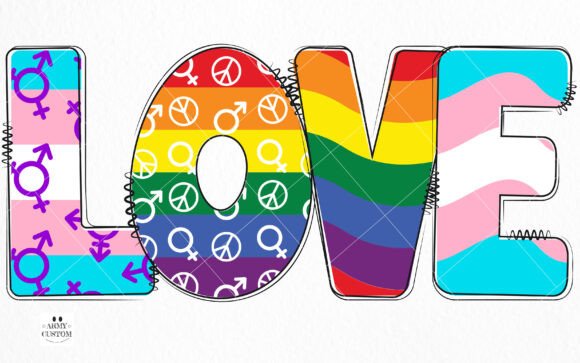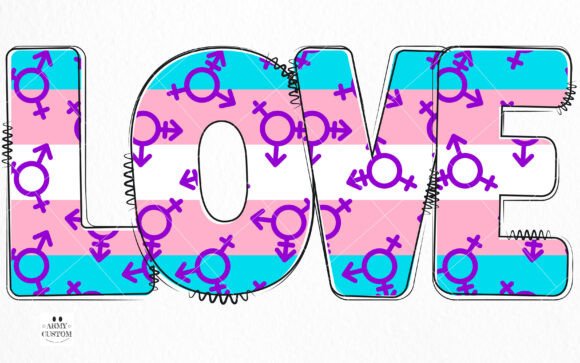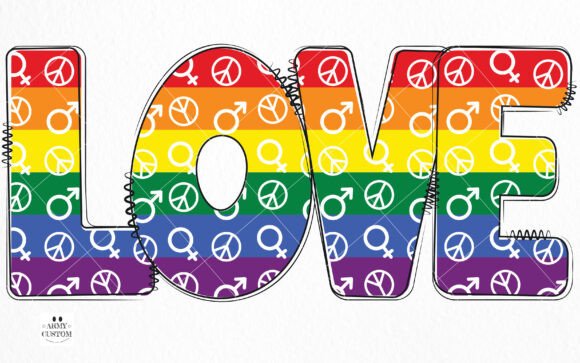
Introduction to Love Pride Bundle Font
Have you ever been brainstorming a creative project, pouring your heart and soul into it, only to be stuck on the perfect typography? We’ve all been there, searching for that one font that captures the essence of our vision. For designers, finding the right font can be a game-changer. It’s the difference between a good design and an amazing one.
That’s why we’re excited to introduce you to the “Love Pride Bundle Font”, a high-quality, free download that’s sure to become your new go-to design resource. This captivating typeface is not only beautiful but also versatile, offering a transparent background that’s perfect for a wide range of creative projects.
With the “Love Pride Bundle Font”, you’ll be able to express your love and pride in a way that’s both elegant and dynamic. Whether you’re working on a romantic project or a celebratory design, this font is sure to bring a touch of magic to your work. So why wait? Dive into the world of “Love Pride Bundle Font” and discover a new level of creative expression.
Key Features of Love Pride Bundle Font
- High-quality design resource for creative projects, including love and pride-themed graphics
- Includes a range of unique, hand-drawn fonts with transparent backgrounds for easy customization
- Perfect for designers and artists working on love and pride-themed projects, including social media graphics, posters, and more
- Includes a range of love and pride-themed graphics, including icons, patterns, and more, to enhance your creative project
- Easy to use and customize, making it an excellent design resource for both beginners and experienced designers
Honest Review: Love Pride Bundle Font
As a designer, I was excited to dive into the Love Pride Bundle Font, a free download that promised high-quality fonts perfect for any creative project. I was not disappointed.
What works well: ✨ The Love Pride Bundle Font offers a unique set of fonts that are perfect for adding a touch of personality to any design. The fonts are well-designed, with clean lines and a modern feel. I also appreciated the transparent background, which made it easy to work with.
What’s not so great: ⚠️ While the Love Pride Bundle Font is a great resource, I did encounter some limitations. The font selection is relatively small, and I found myself wanting more variety. Additionally, the fonts may not be suitable for all types of projects, particularly those requiring a more formal tone.
Overall, I was impressed with the Love Pride Bundle Font. It’s a great addition to any designer’s toolkit, and I would definitely recommend it to anyone looking for a unique and high-quality design resource.
Here are some pros and cons to consider:
- Unique and well-designed fonts
- Transparent background makes it easy to work with
- May not be suitable for all types of projects
- Font selection is relatively small
Use the font in conjunction with other design elements to create a cohesive look. Experiment with different font sizes and colors to add depth and visual interest. Consider using the font in combination with other design resources, such as graphics or images, to create a unique and eye-catching design.
The Love Pride Bundle Font is perfect for a variety of projects, including social media graphics, posters, flyers, presentations, and documents. It’s also an excellent choice for design projects that require a high-quality, transparent font with a creative and modern design.